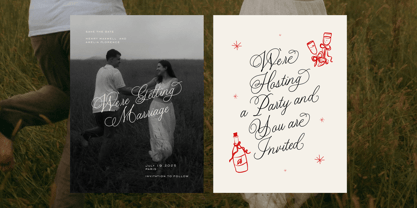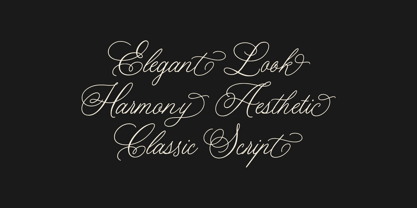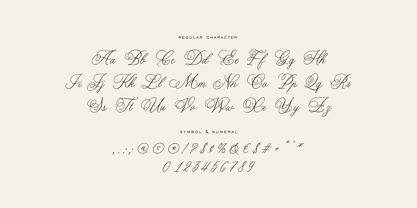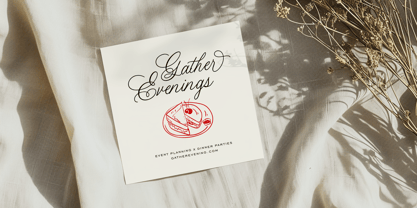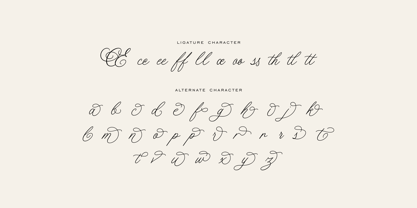
Deagoiset
by Imoodev
The Deagoiset Font Family was designed by Aulia Savira Putri and published by Imoodev. Deagoiset contains 1 styles. More about this family
Introducing 'Deagoiset' is a sophisticated romantic handwritten script font that radiates timeless elegance and classic charm. Its flowing letterforms are adorned with sweeping swashes and graceful curves, echoing the refined beauty of traditional calligraphy. Deagoiset is meticulously crafted with a harmonious rhythm, making every word feel like a hand penned love letter. This script font delivers a sense of romance, artistry, and luxurious style perfect for wedding invitations, luxury branding, restaurant menus, cafe signage, valentine's greeting cards, flower packaging, romantic posters, certificates, fashion lookbooks, signature logo, watermarks, social media, product packaging (think perfumes, jewellery, boutique shop), or heartfelt event stationery.
Designers: Aulia Savira Putri
Foundry: Imoodev